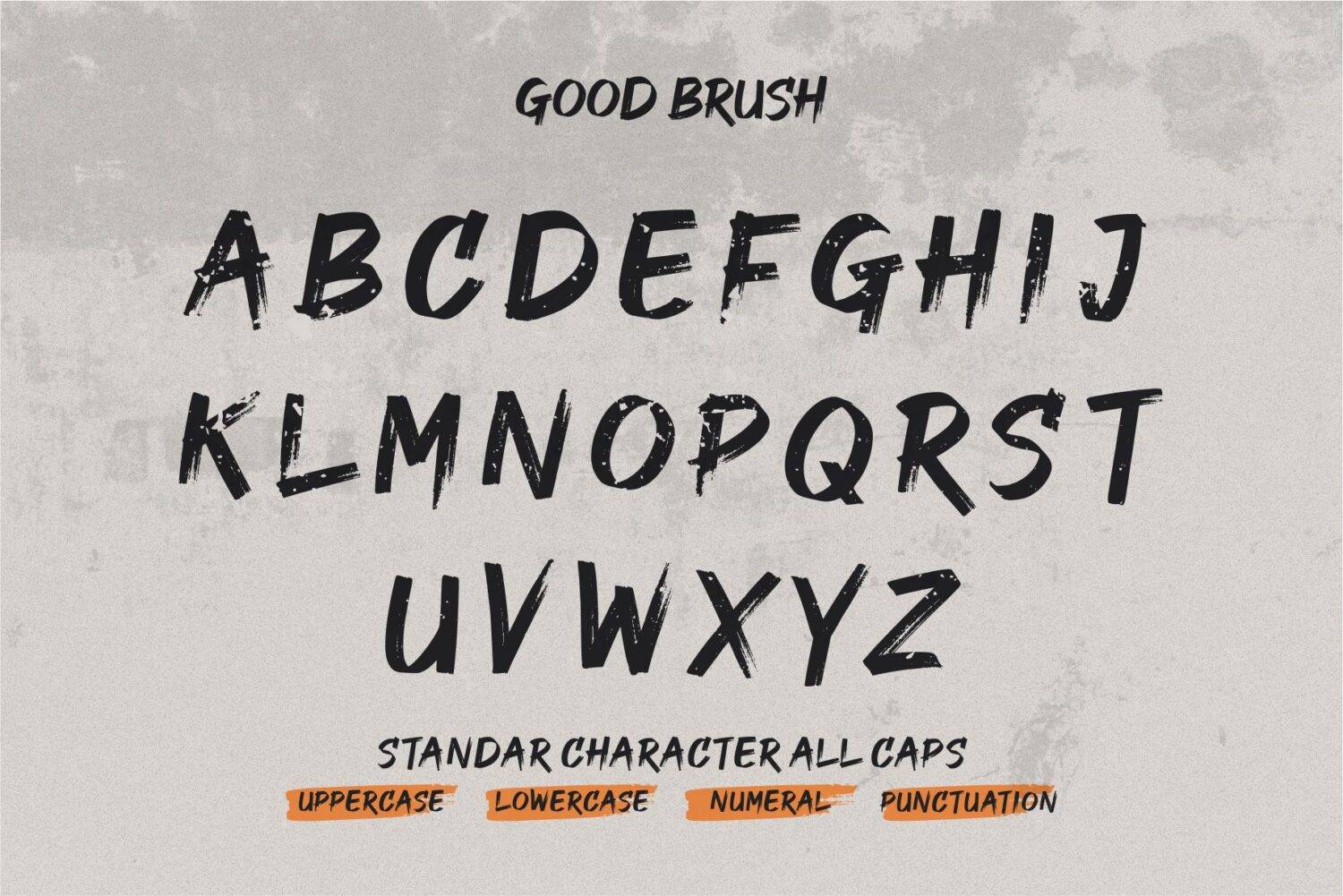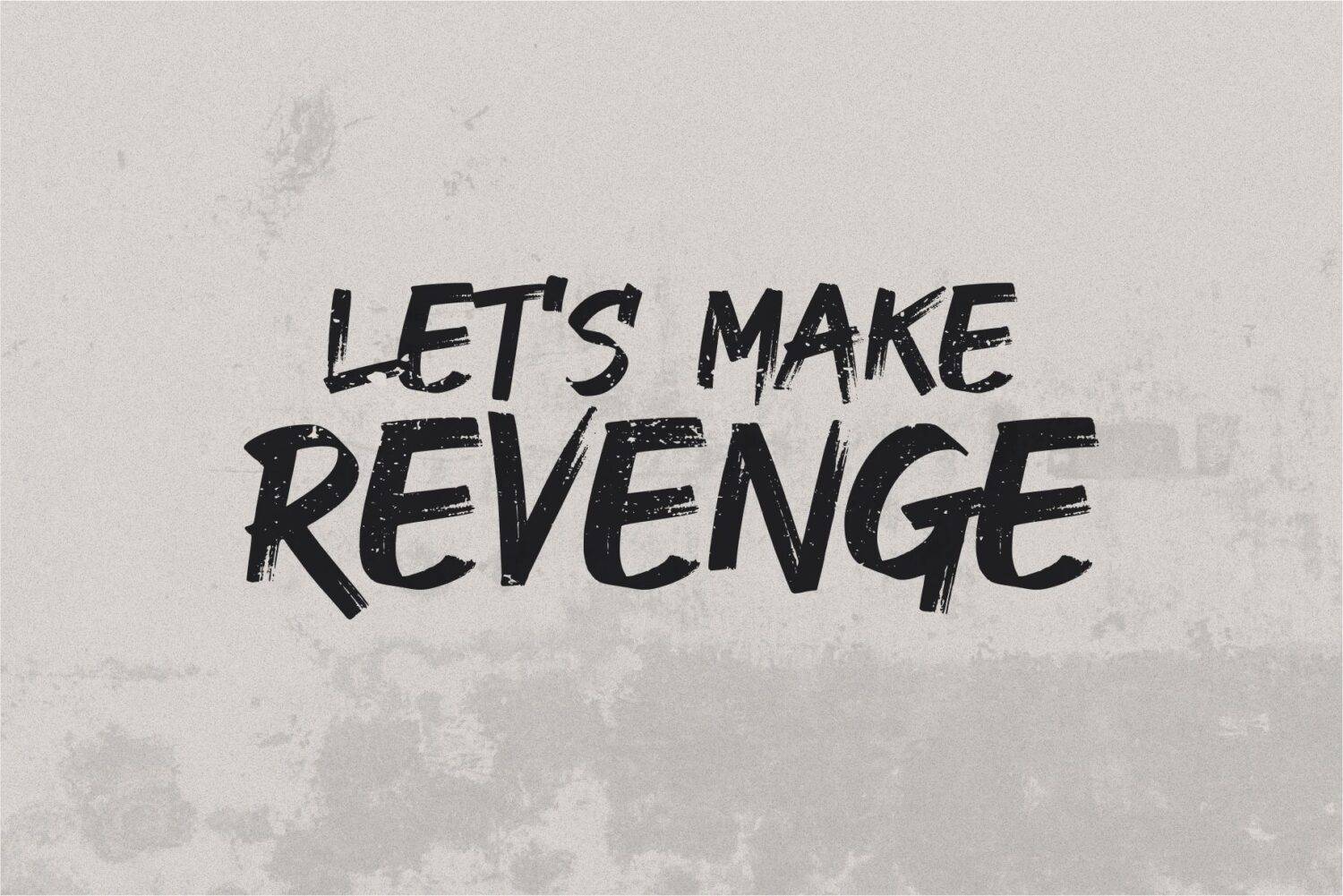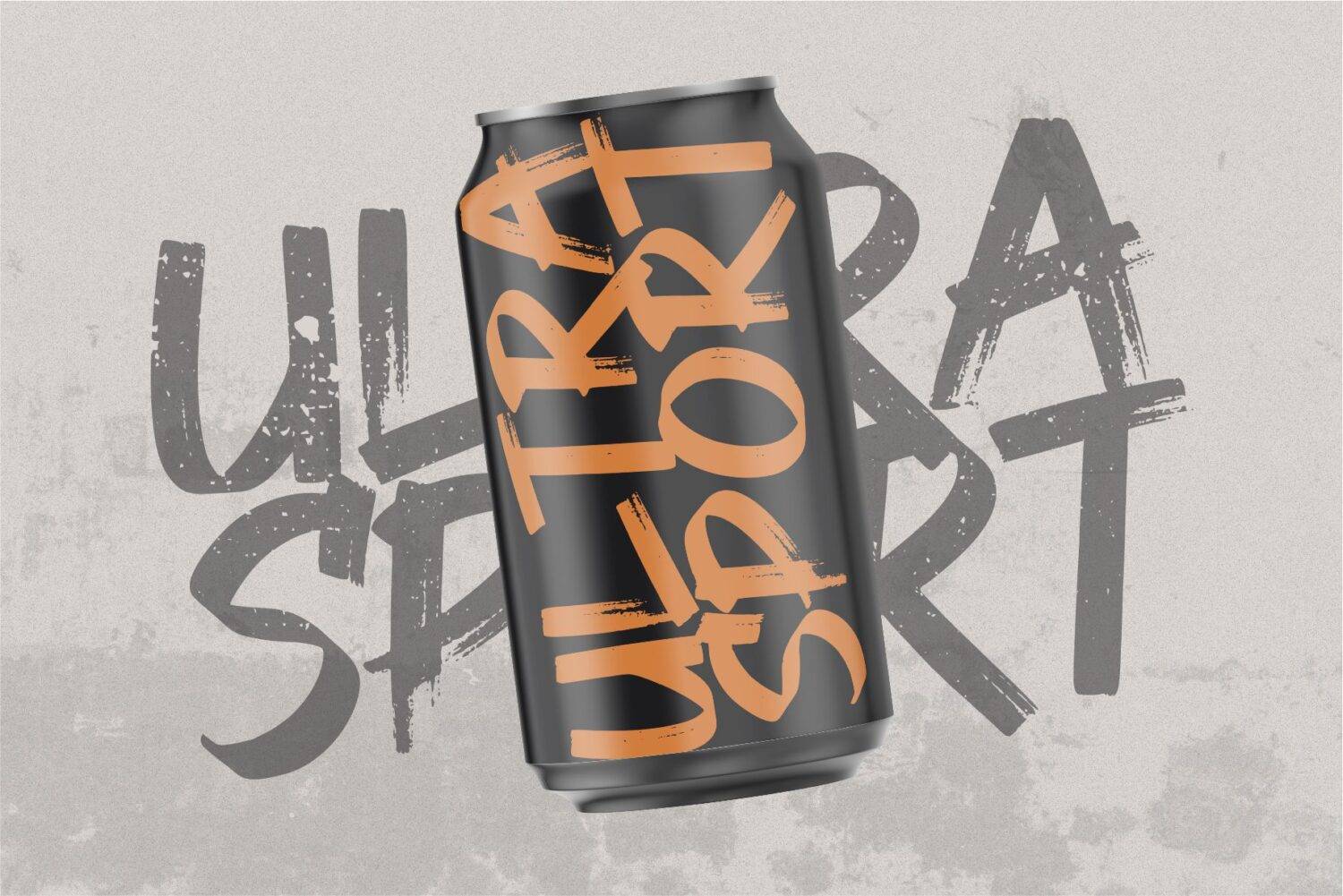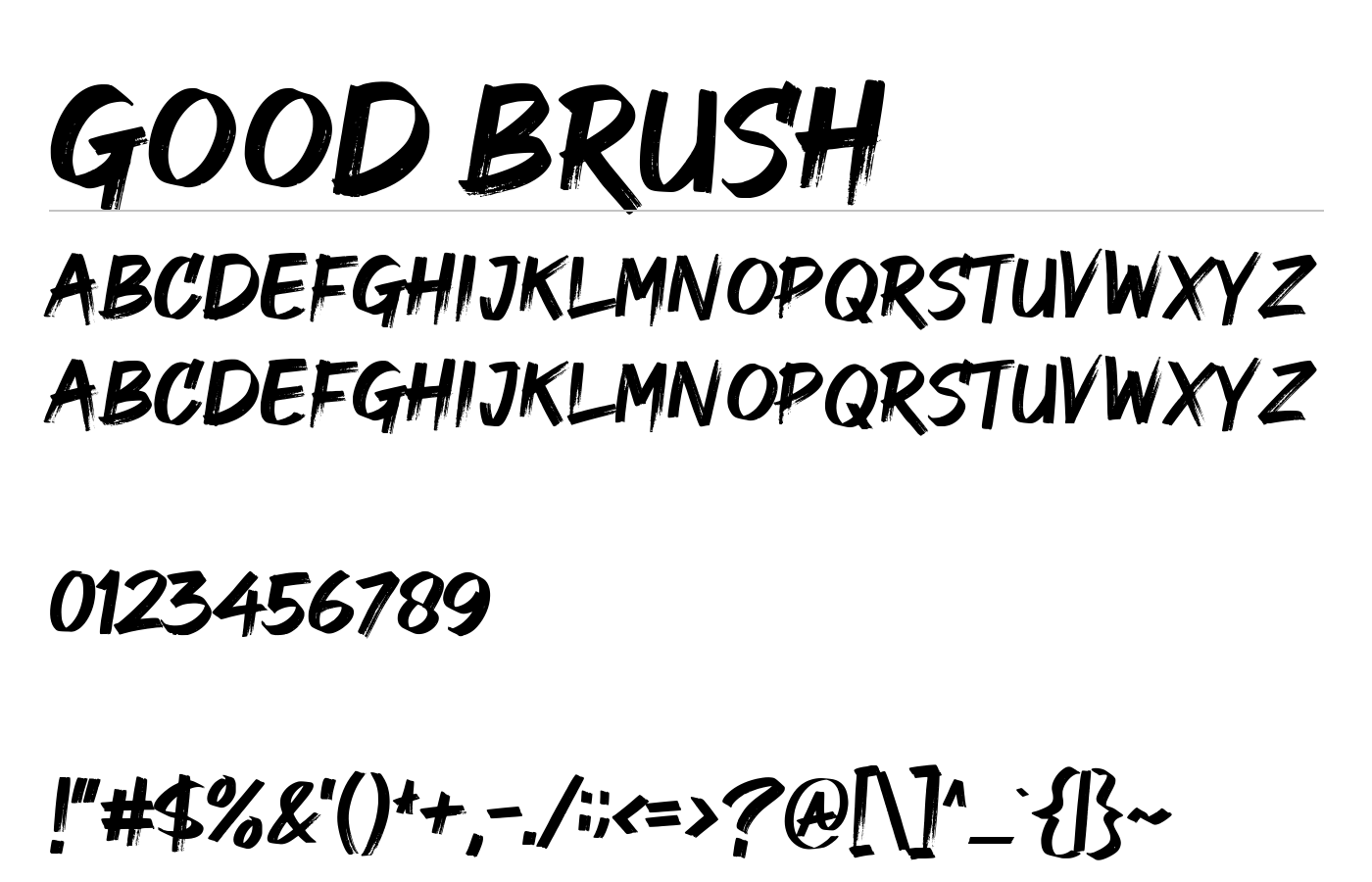
Good Brush Font is a bold, energetic brush script that conveys a hand-painted, casual feel with its rough, textured strokes and dynamic letterforms. This font is perfect for adding a playful, artistic touch to creative projects, logos, posters, and packaging where a lively, expressive style is desired. Its strong personality and organic flow make it ideal for designs that want to stand out with a handcrafted, authentic vibe.
Good Brush Font
About Good Brush Font
| Font family | Good Brush Font |
| Release date | 2019-05-04 |
| Designer | Good Java Studio |